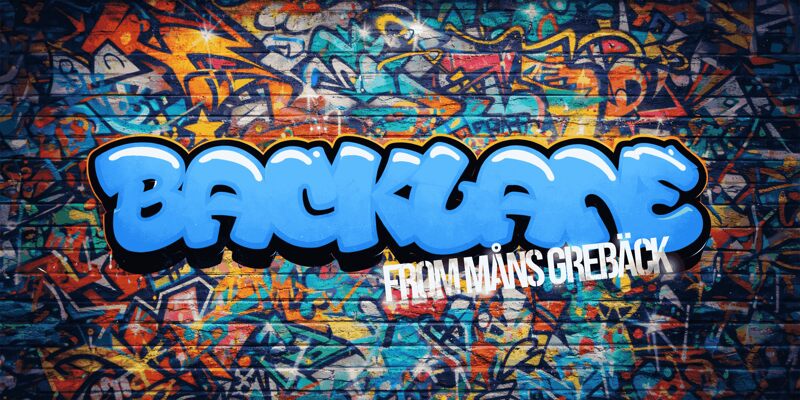
Backlane font
Backlane
Backlane is a bold graffiti-style display font inspired by street lettering and painted walls. Its rounded shapes, heavy outlines, and playful proportions create a loud yet friendly presence. The letters have a hand-drawn feel but are carefully crafted, ensuring a smooth flow that maintains readability even when stretched wide.